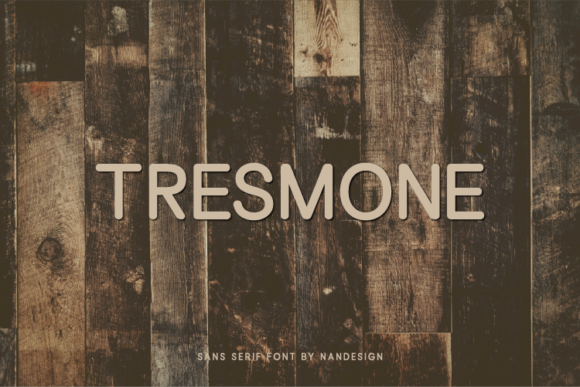
Prepare yourself to be mesmerized by Tresmone Font, the ultimate sans serif font family, meticulously crafted by the renowned Nan Design. This typographic masterpiece is a symphony of simplicity and elegance, designed to captivate the hearts of fashion-forward bloggers and design enthusiasts alike.
Tresmone's clean lines and delicate curves exude a timeless charm, making it the perfect choice for creating logos that exude sophistication and professionalism. Picture your brand's emblem adorned with Tresmone's graceful characters, leaving an unforgettable impression on your audience.
Fashionistas, rejoice! Tresmone Font is your secret weapon for creating wedding invitations that ooze romance and personality. Its delicate strokes will add a touch of whimsy to your special day, ensuring that your invitations stand out from the crowd.
Unleash your creativity and let Tresmone Font elevate your headings to new heights. Its versatile nature allows it to complement a wide range of design styles, from minimalist chic to bold and eclectic. Whether you're crafting headlines for your blog, magazine, or social media posts, Tresmone will add an air of sophistication and refinement that will leave your readers spellbound.
Crafters, prepare to be amazed as Tresmone Font transforms your t-shirts, letterheads, and signage into works of art. Its clean lines and crisp edges will add a touch of understated elegance to any project, ensuring that your designs stand out from the ordinary.
Businesses looking to make a lasting impression can harness the power of Tresmone Font to create labels, news articles, posters, and badges that command attention. Its ability to convey messages with clarity and impact will amplify your brand's voice and leave a lasting impression on your target audience.